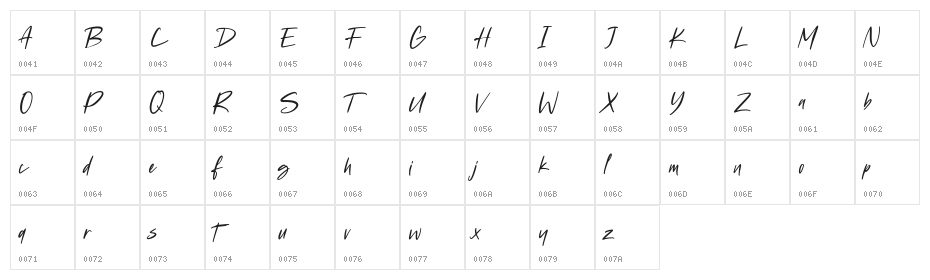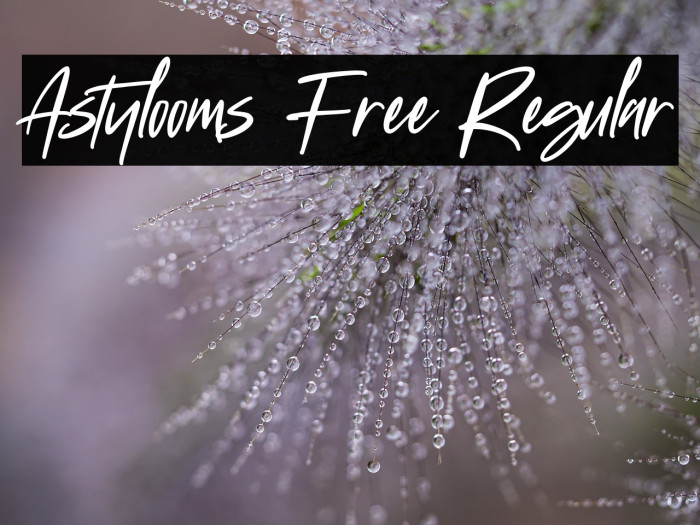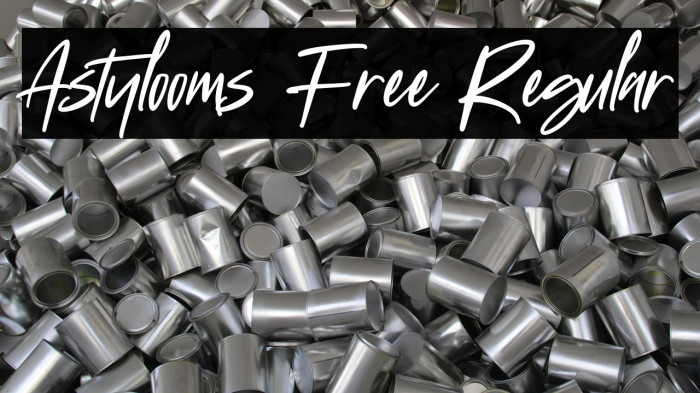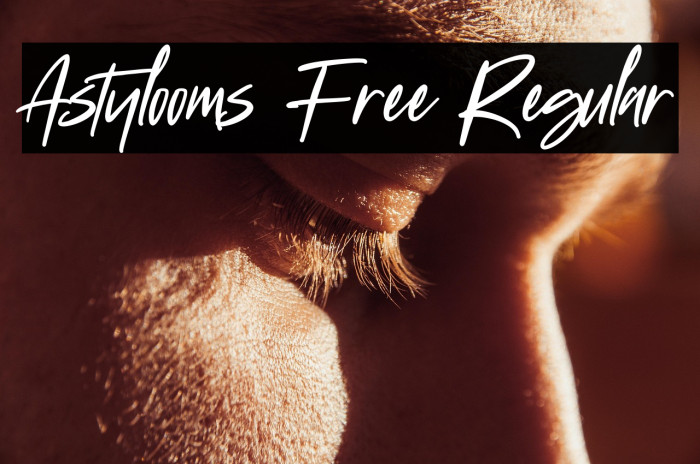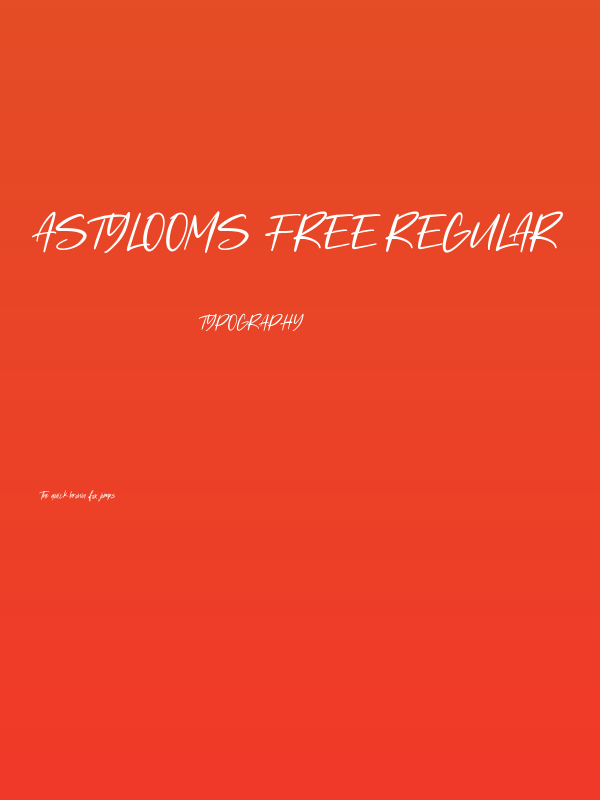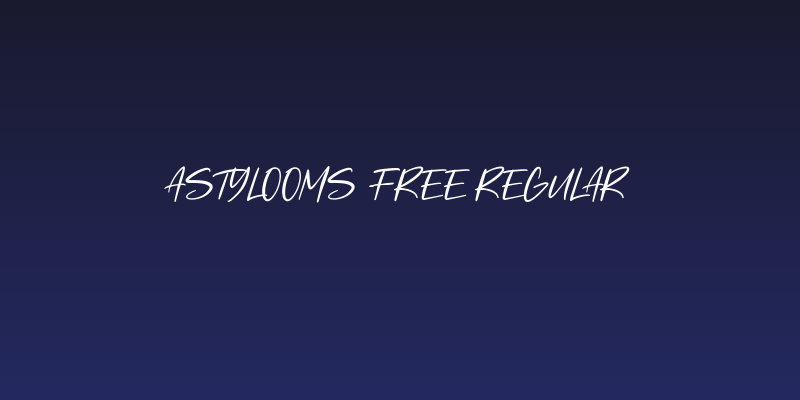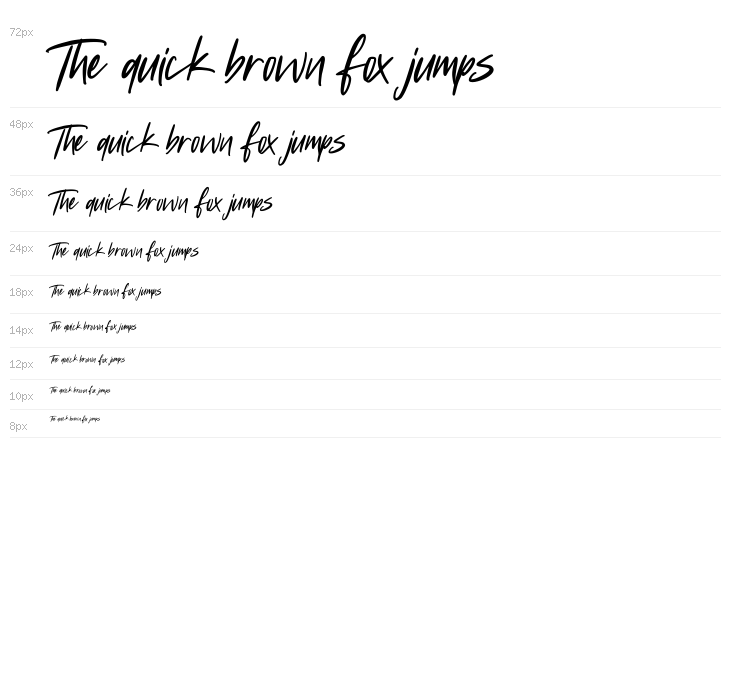
Astylooms Free Regular Font
Astylooms Free Regular Description
This font features a dynamic and expressive handwritten style, characterized by its fluid and cursive letterforms. The strokes are smooth and slightly irregular, adding a personal and artistic touch to the text. The uppercase letters are bold and prominent, while the lowercase letters maintain a consistent flow, enhancing readability. The font's playful and casual appearance makes it suitable for creative projects that require a personal and informal tone. Its unique style is perfect for capturing attention and conveying a sense of individuality.
| Overall Style | Casual, Artistic |
| Proposed Projects | Ideal for greeting cards, invitations, personal branding, and creative posters. |